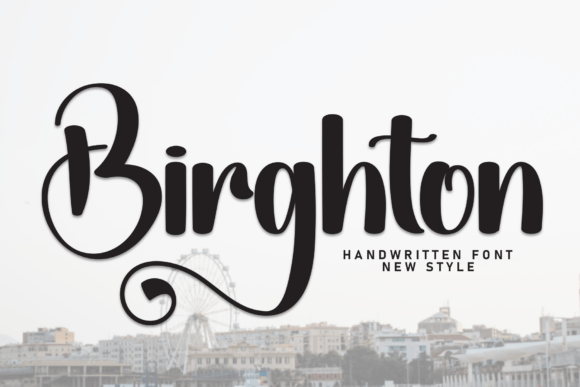
The Sweet Spot: Discovering the Charm of Birghton Font
I still remember the frustration of working on a design project, hours spent searching for the perfect font, only to end up with something that just didn’t feel right. My client wanted a friendly, approachable vibe for their branding, but everything I tried seemed either too formal or too quirky. That’s when I stumbled upon Birghton Font, a sweet and friendly handwritten font that instantly clicked. Its natural and unique style made it incredibly fitting for a large pool of designs. The only limit, as they say, is your imagination!
What I Love About Birghton Font
- ✨ Natural and Unique Style: Birghton Font has a distinct handwritten feel that adds a personal touch to any design.
- ✅ Versatility: It’s incredibly versatile, suitable for a wide range of projects from branding and packaging to invitations and social media graphics.
- 💫 Ease of Use: Despite its unique style, Birghton Font is surprisingly easy to read and work with, even for beginners.
- 🎨 OpenType Features: It comes with a range of OpenType features, including stylistic alternates and glyphs, which allow for a high degree of customization.
While Birghton Font is fantastic for many uses, there are a few things to keep in mind:
- 🤔 Legibility at Small Sizes: Like many handwritten fonts, Birghton can get a bit tricky to read at very small sizes. It’s best used at larger sizes where its charm can shine.
- ⚠️ Overuse of Stylistic Alternates: With so many stylistic alternates available, it’s easy to get carried away. Use them sparingly to maintain readability and design balance.
Birghton Font was inspired by the charming streets of Brighton, a seaside resort town known for its eclectic mix of Victorian and modern architecture. The font’s designer aimed to capture the friendly and welcoming spirit of the town in a typeface that’s both unique and highly legible. Whether you’re working on a branding project or just crafting something for fun, Birghton Font brings a touch of that Brighton charm to your designs.
Q: Is Birghton Font suitable for body text?
A: While Birghton Font is primarily designed for display purposes, it’s surprisingly readable. However, for long body text, you might want to consider a more traditional serif or sans-serif font for better readability.
Q: Is Birghton Font available in multiple weights?
A: Birghton Font comes in a single weight, but its versatility and range of OpenType features make it adaptable to various design needs.